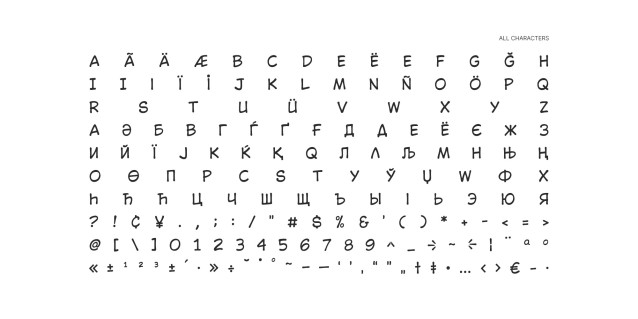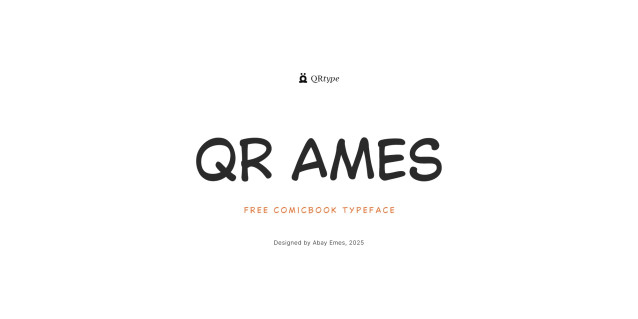
QR Ames Beta Font is a simple and friendly handwritten font. Its natural and unique style makes it incredibly fitting to a large pool of designs. The only limit is your imagination!